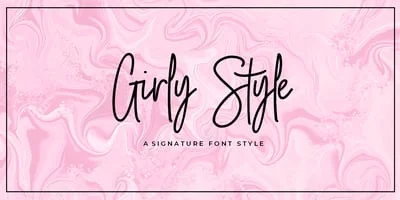
Girly Style Font
Girly Style Font is perfect for trendy fashion boutiques, teenage lifestyle branding, beauty salon signage, cute stationery designs, girl's birthday party invitations, feminine blog headers, sweet sixteen celebrations, makeup brand packaging, cheerful social media graphics, and any playful project that celebrates youthful femininity and contemporary girl culture with vibrant charm.
What makes Girly Style Font exciting is its bubbly personality that captures the confident joy of modern girlhood and the playful energy of contemporary feminine style. This typeface embodies the spirit of fun-loving femininity with rounded letterforms that seem to bounce with enthusiasm and sparkle with youthful optimism. The font's cheerful character makes it perfect for brands and projects that want to communicate happiness, confidence, and the delightful energy of young women embracing their unique style and personality.
The Girly Style Font family includes multiple weights and playful variations, featuring light, regular, and bold versions along with decorative elements and alternate characters inspired by contemporary fashion and beauty trends. This comprehensive collection allows designers to create vibrant feminine typography that maintains the font's signature cheerful character while providing flexibility for various youth-oriented and fashion-forward design applications.
When exploring authentic contemporary feminine typography, Girly Style Font represents an exceptional opportunity to work with a typeface that genuinely captures the spirit of modern girl culture and youthful fashion expression. This font demonstrates innovative design thinking by embracing the confident playfulness and optimistic energy that define contemporary feminine style and social media aesthetics.
Professional designers appreciate Girly Style Font for its ability to instantly connect with young female audiences and establish brand personalities that resonate with contemporary girl culture. The font's vibrant character makes it particularly effective for fashion brands, beauty companies, and lifestyle businesses targeting teenage and young adult women who value self-expression, creativity, and the joy of personal style exploration.
The contemporary appeal of Girly Style Font lies in its perfect representation of confident femininity and youthful empowerment that speaks to today's generation of young women. This typeface serves as a celebration of girl power and the freedom to express personality through style, making it an excellent choice for projects that want to encourage self-confidence and creative expression.
For creative professionals working with youth and feminine brands, Girly Style Font represents the ultimate typography solution that brings authentic girl culture energy and contemporary feminine charm to any application, ensuring designs reflect the joyful confidence and stylish creativity that define modern girlhood and youthful fashion expression.